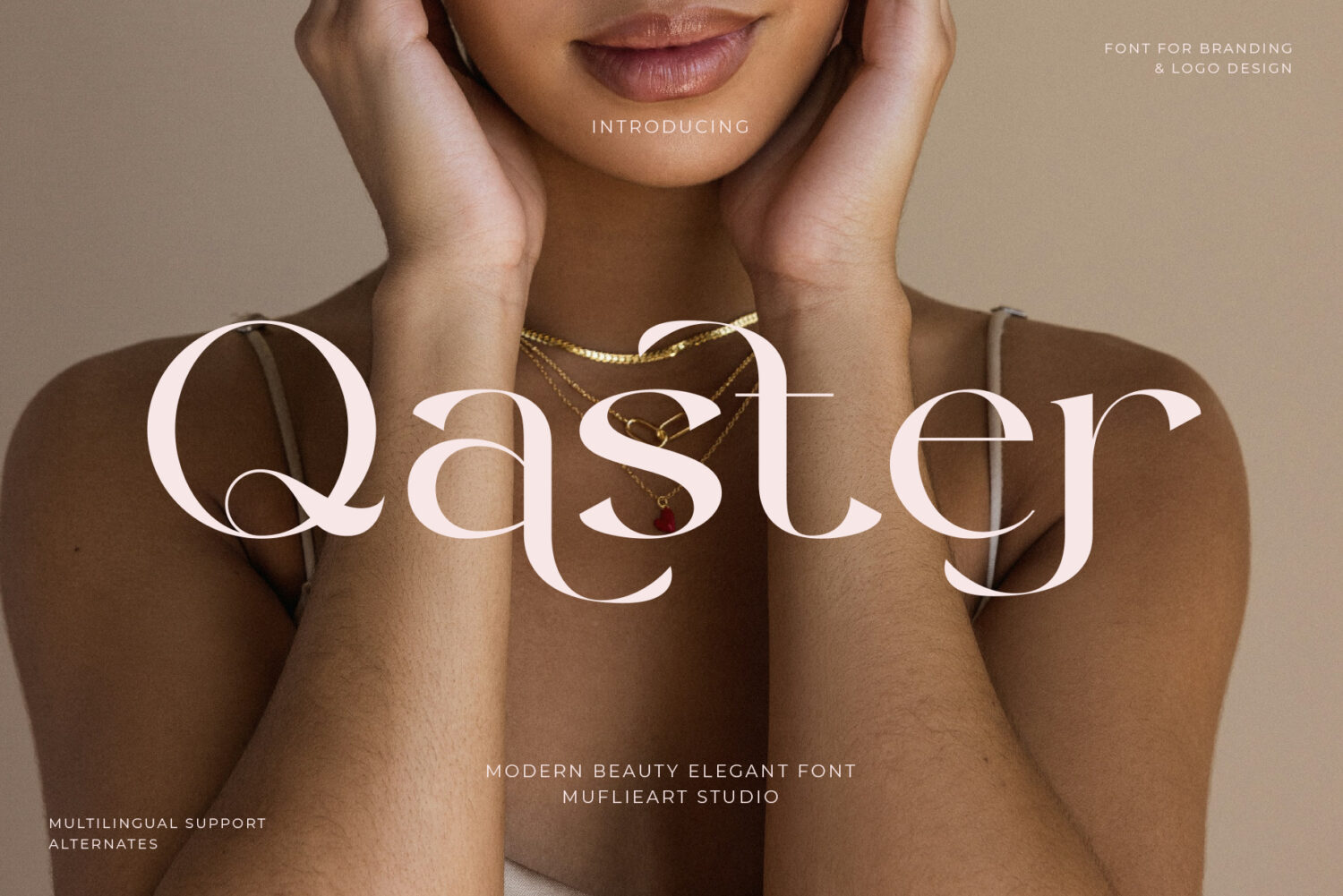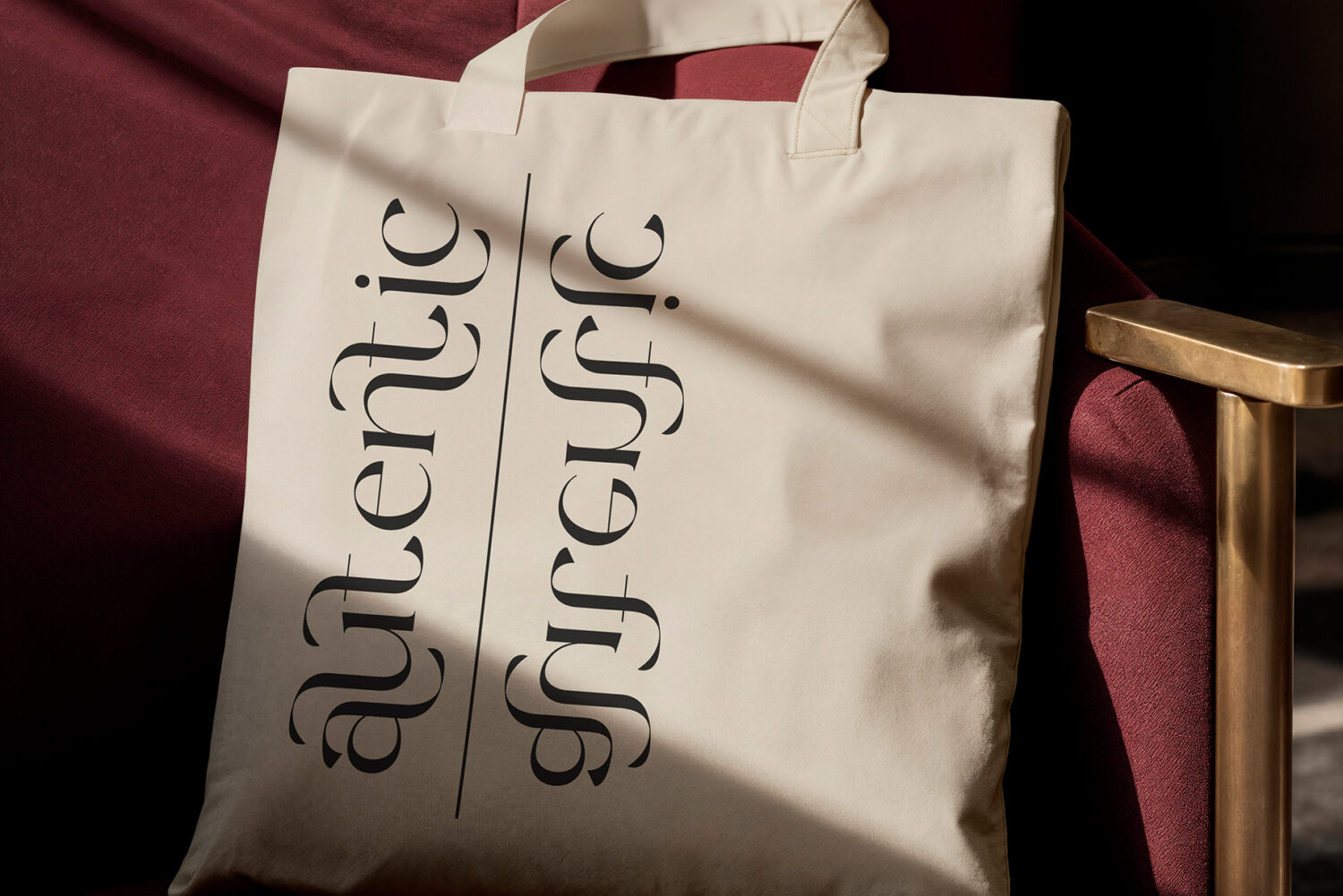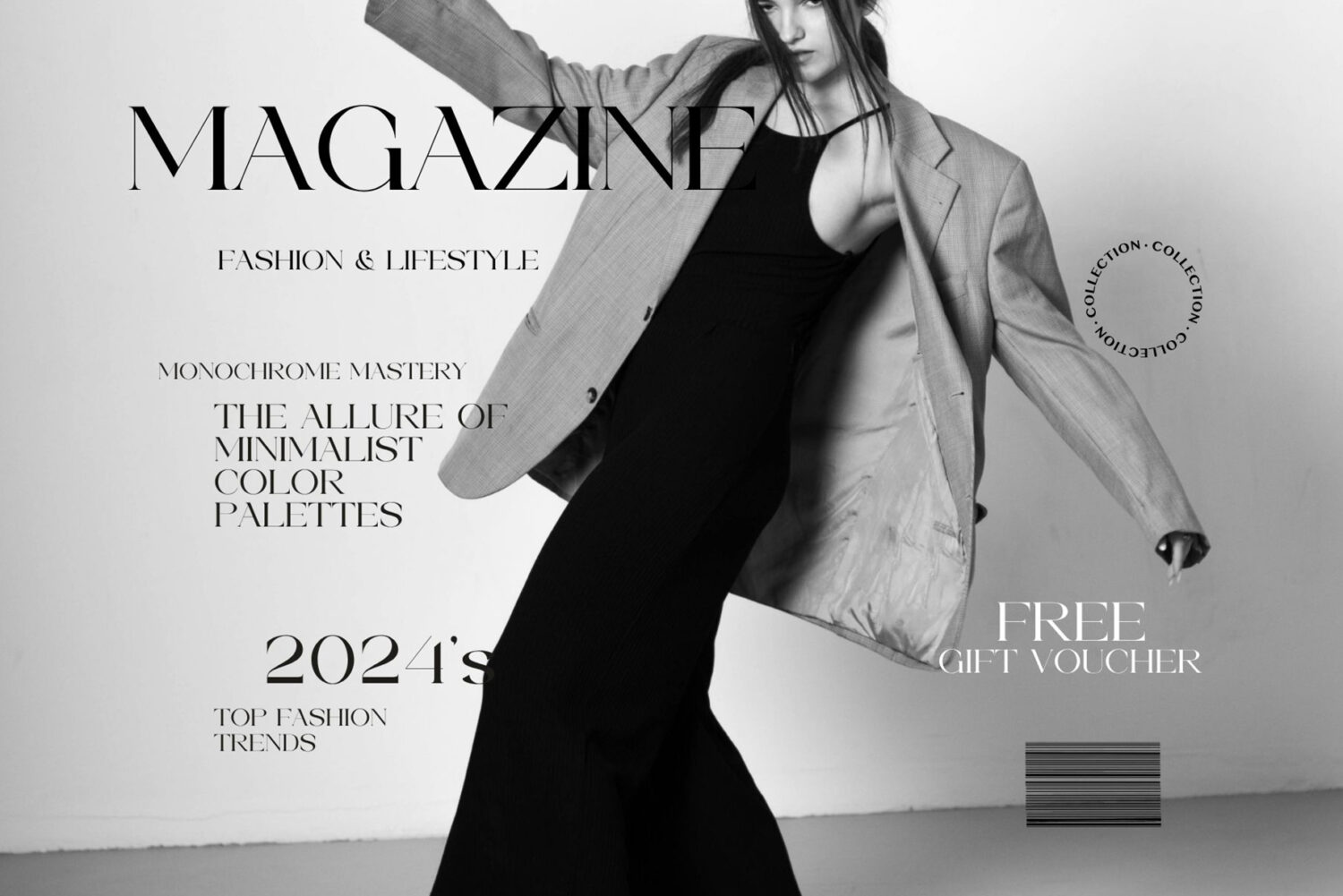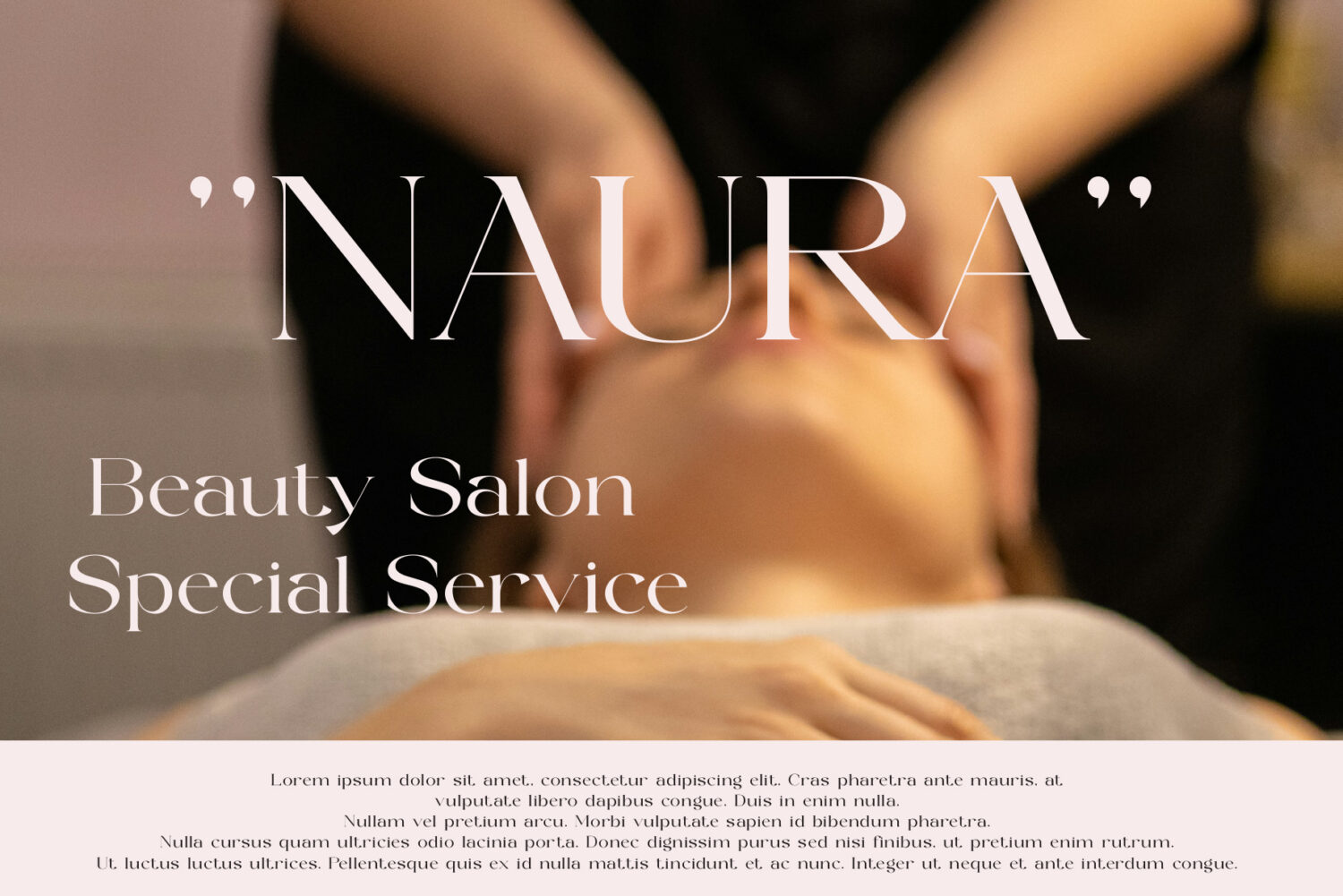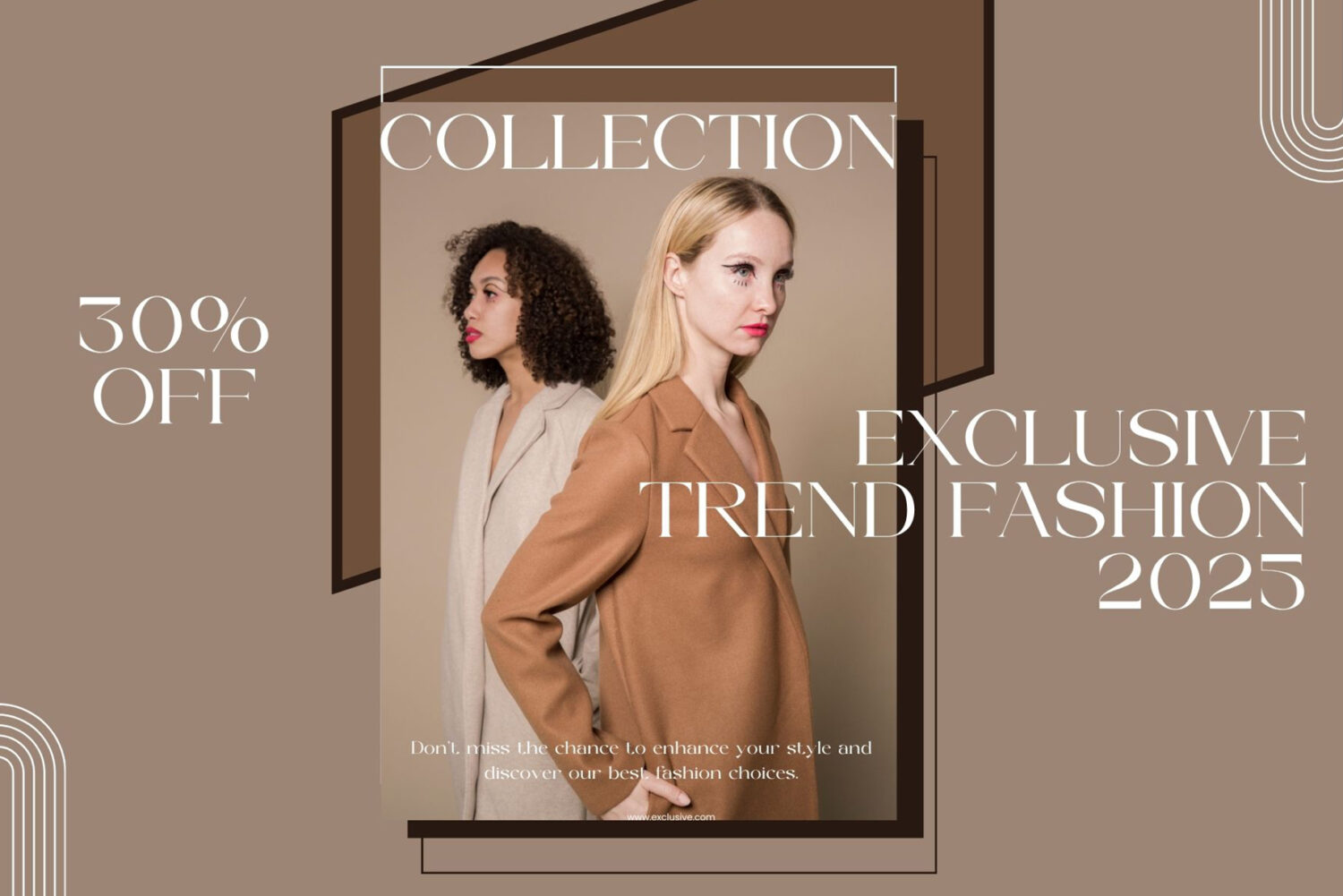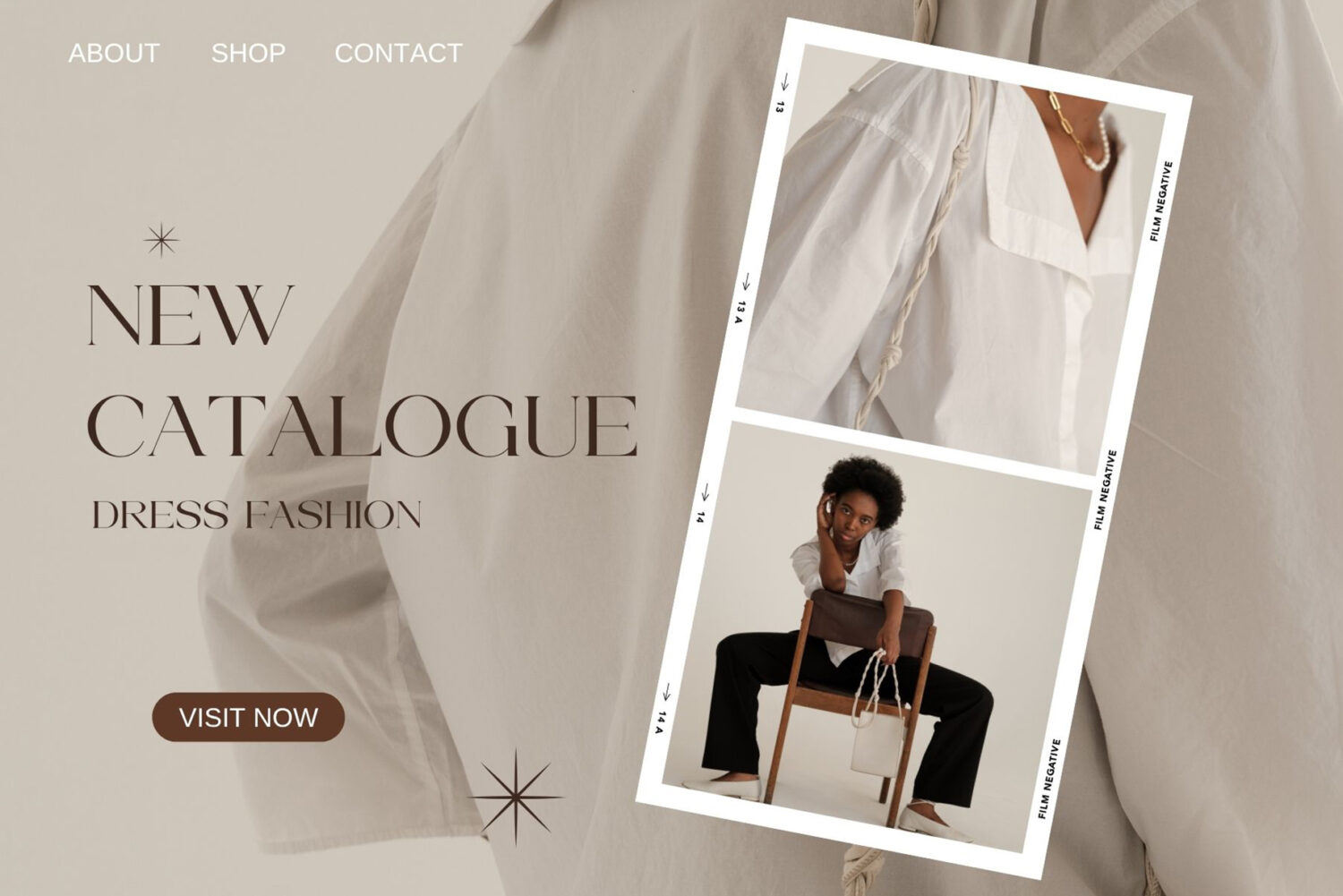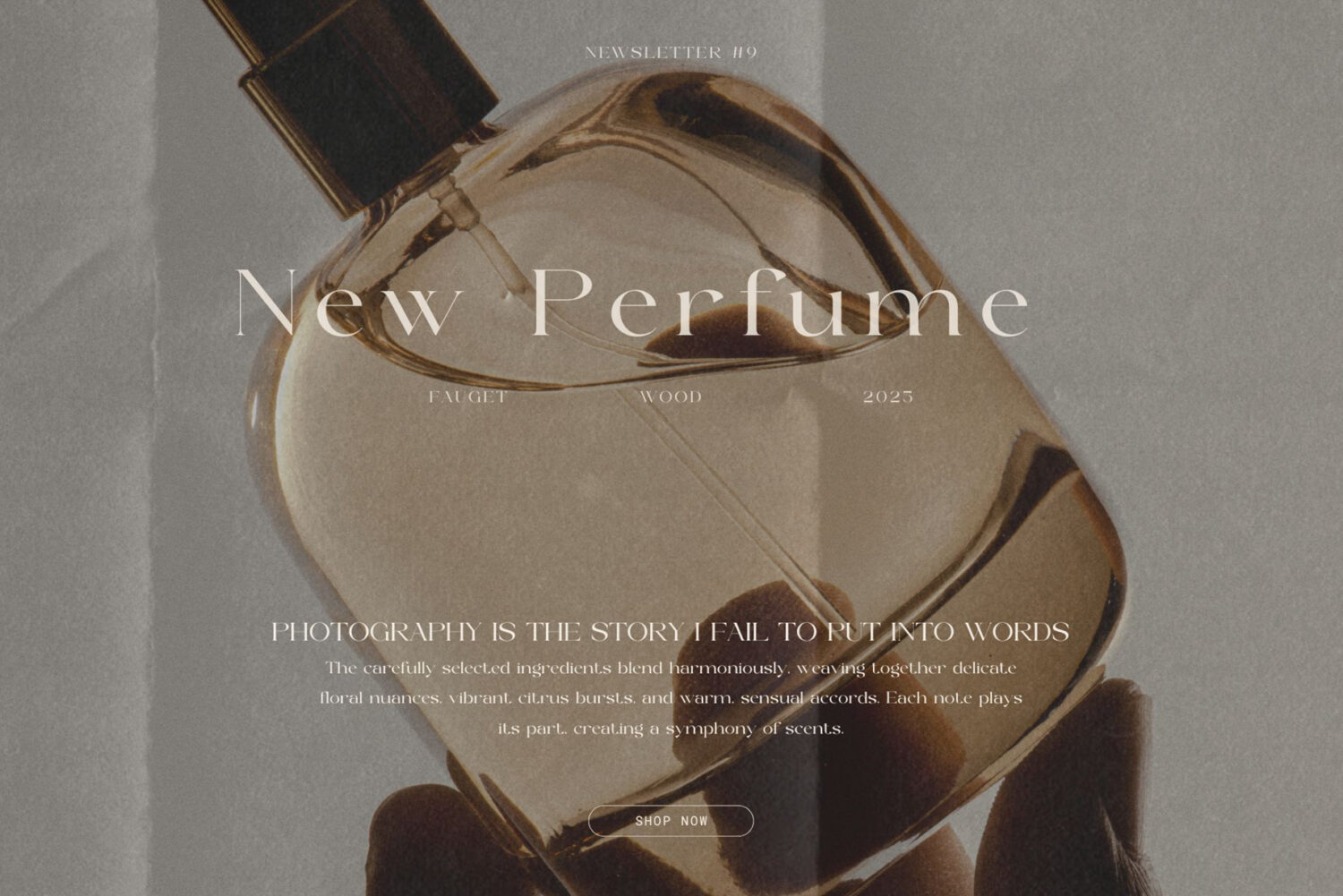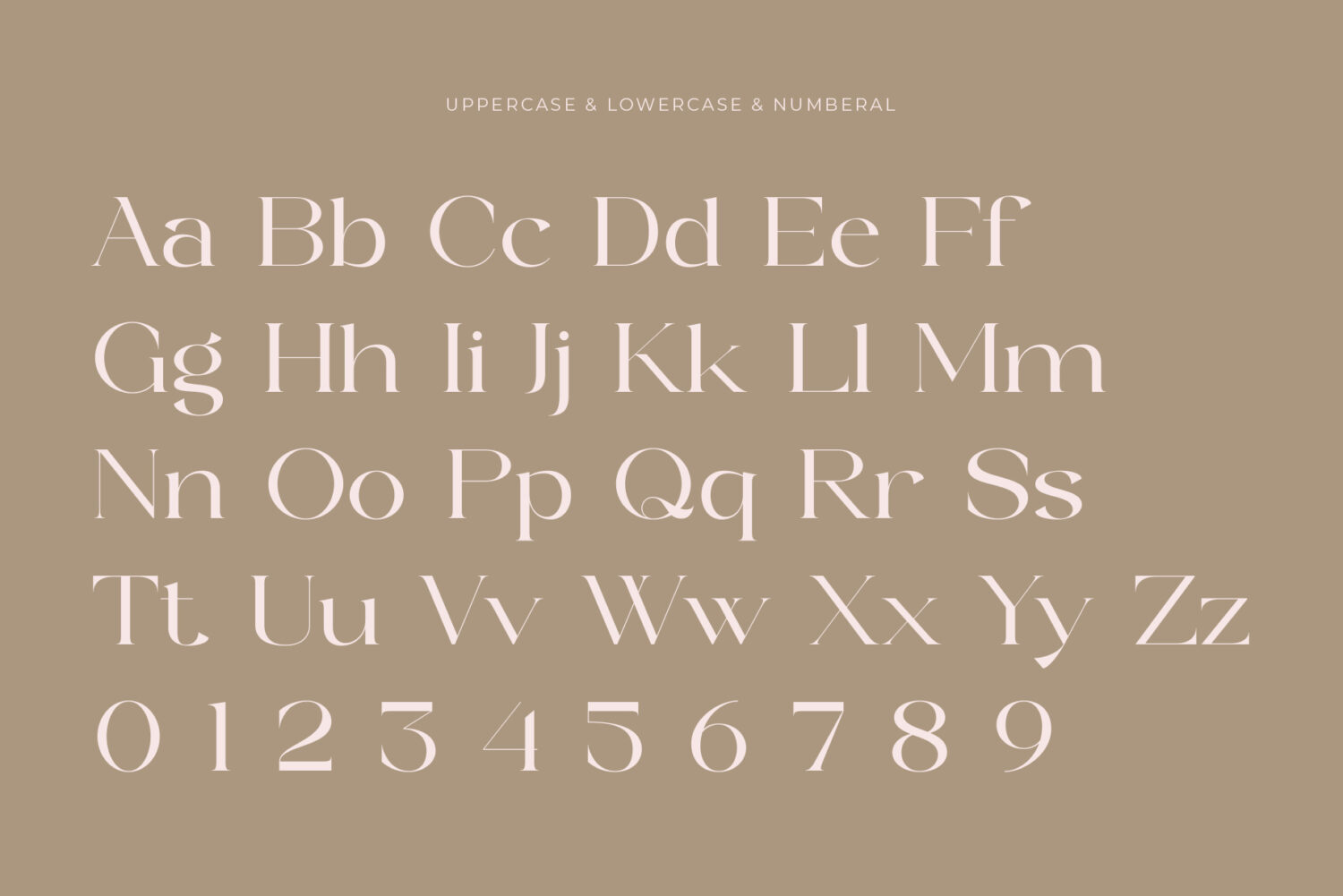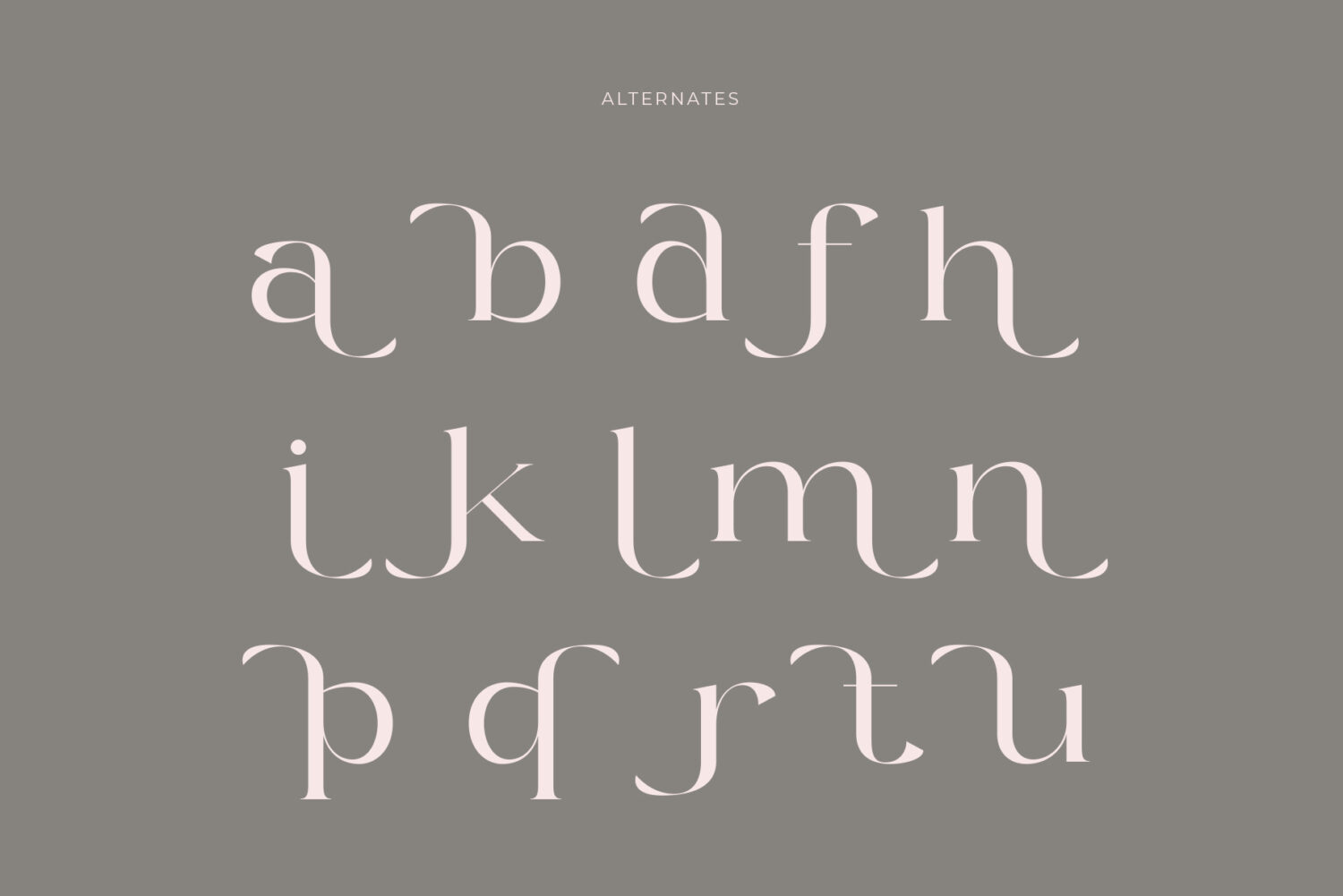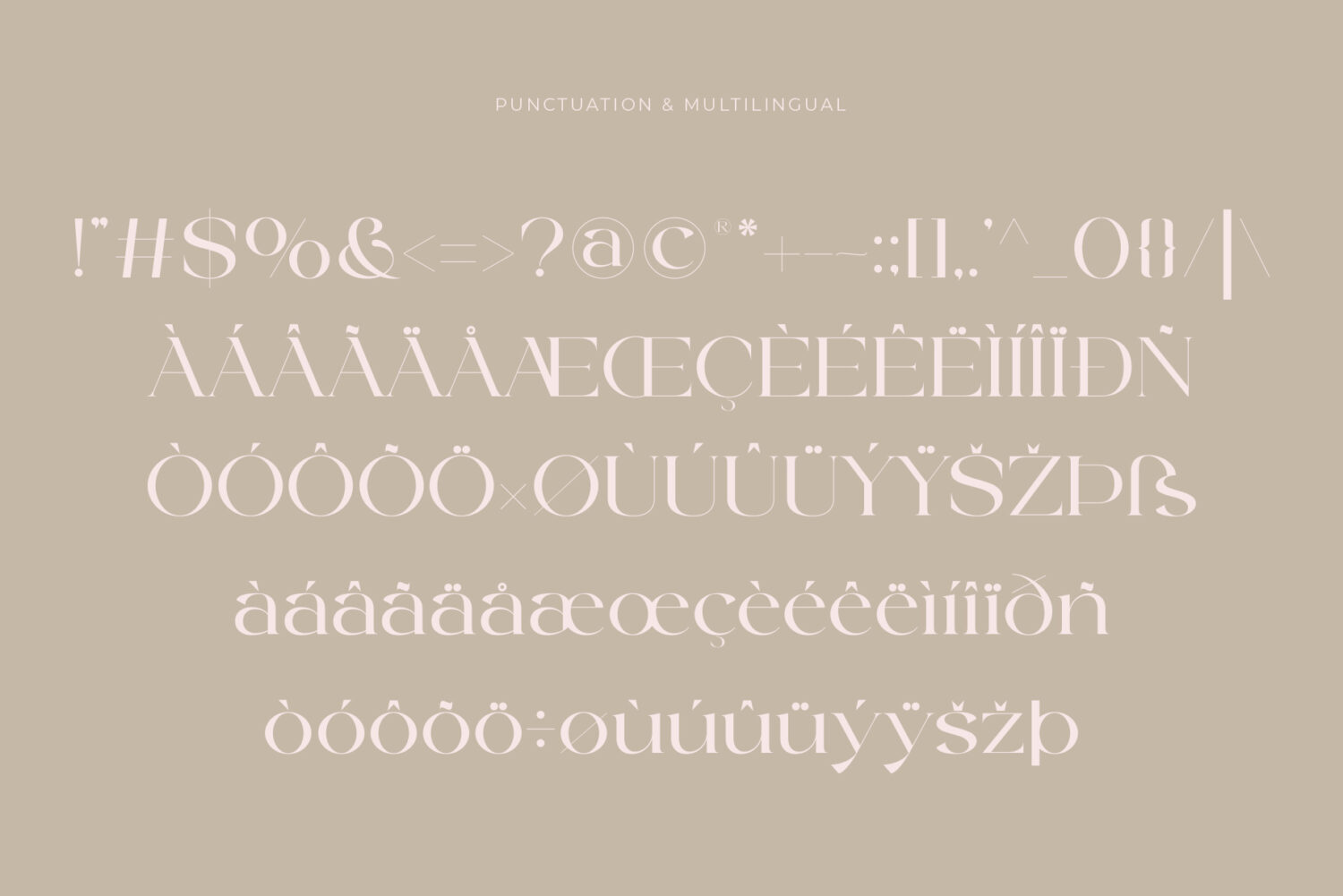
Introducing **Qaster** the elegant, beautiful, and modern Serif font. With its modern and minimalist look, Qaster brings a luxurious, classy, and clean style to your projects such as websites, modern logos, brand identities, social media quotes, wedding stationery, magazines, and more!
Qaster features unique and classy capital letters A to Z and also comes with unique alternates making Qaster a beautiful font that can be customized for various projects and jobs you want.
Qaster is perfect for: logos, brands, wedding invitations, business cards, greeting cards, posters, magazines, social media, agenda prints, and websites.